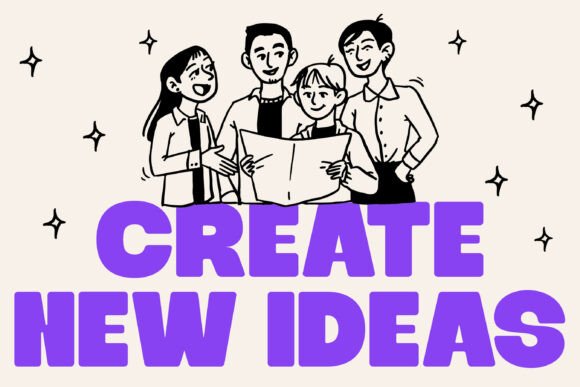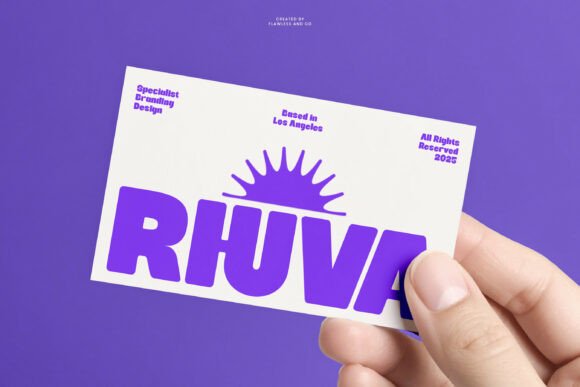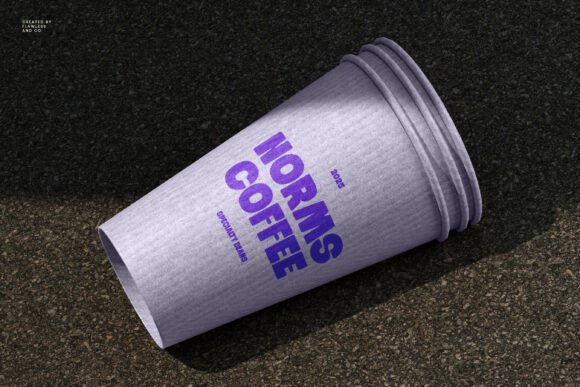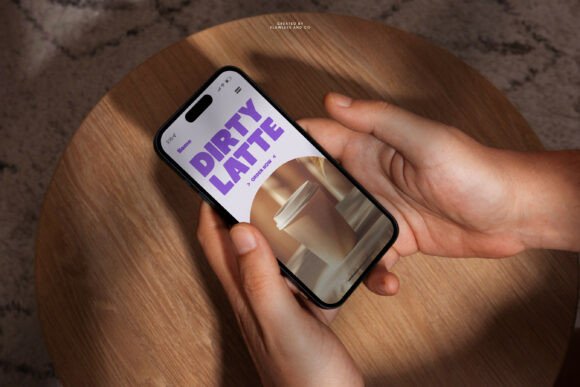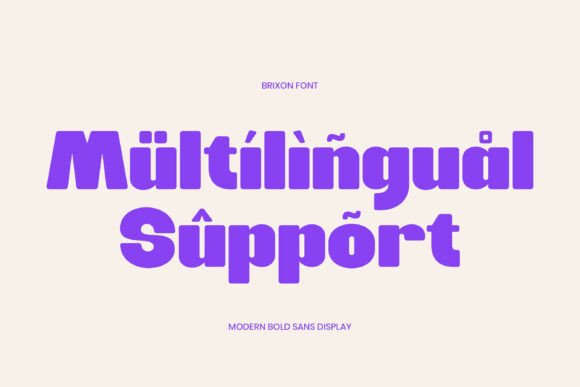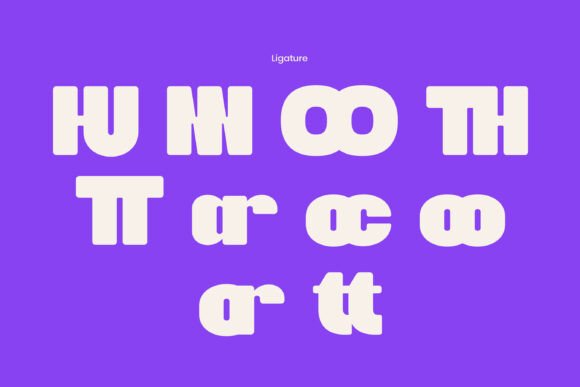
The Power of Bold Typography
Have you ever been stuck on a design project, searching for the perfect font to convey your message and capture your audience’s attention? You know that moment when you’re scrolling through font libraries, and suddenly, a font leaps off the screen, speaking directly to your creative soul? That’s exactly what happens when you come across the Brixon Font.
Built for bold communication, the Brixon Font is a game-changer for designers. With its strong shapes, confident proportions, and modern character, this sans serif display font is designed to make an instant impact. Whether you’re working on a brand identity, a marketing campaign, or a visual project, the Brixon Font delivers powerful visual energy that stands out in any design.
What sets Brixon apart is its unique ability to balance clean lines with expressive character, making it highly readable even at large sizes. This makes it an invaluable tool for designers who need to communicate effectively and make a lasting impression.
Brixon Font Key Features
- Font Family: Brixon Font is a sans-serif font family designed for use in digital and print media.
- Font Size and Resolution: Designed for use at font sizes ranging from 8 to 24 points, with optimal resolution at 300 DPI (dots per inch).
- Unique Characteristics: Brixon Font features a clean and modern design, with a unique blend of geometric and rounded shapes that provide excellent readability in both digital and print media.
- Font Weight and Style: Available in 5 font weights (Light, Regular, Medium, Bold, and Black) and 2 font styles (Regular and Italic).
Brixon Font Review
After diving into the Brixon font, I have mixed feelings about its usability and overall design. Here’s my honest take:
- ✨ The Brixon font has a clean and modern aesthetic, which can be beneficial for digital applications.
- ✨ It comes in multiple weights, allowing designers to choose the perfect version for their project.
- ✨ The font supports a wide range of languages, making it suitable for global projects.
- ⚠️ The font lacks a unique personality, making it blend in with other modern sans-serif fonts.
- ⚠️ It may not be the best choice for print projects, as it can appear too digital and lack texture.
- ⚠️ The font’s versatility is somewhat limited, as it may not be suitable for projects requiring a more classic or elegant feel.
The Brixon font is a solid, dependable choice for digital projects, but it may not stand out in a crowded market. If you’re looking for a clean and modern font with multiple weights and language support, Brixon could be a good option. However, if you need a font with a unique personality or specific aesthetic, you may want to consider other alternatives.
Tips for Getting the Most Out of Brixon Font
Here are some tips for getting the most out of Brixon Font:
- Use Brixon Font for headings and titles to add a touch of elegance to your design.
- Combine Brixon Font with other fonts to create a unique and visually appealing font combination.
- Experiment with different font sizes and styles to add depth and interest to your design.
Brixon Font is commonly used for:
- Use the Brixon Font for the quote and the title of the poster.
- Choose a contrasting color for the background to make the text stand out.
- Experiment with different font sizes to create a visually appealing hierarchy.
- Pair the Brixon Font with geometric shapes or abstract patterns to add a touch of playfulness.
- Use a bold, sans-serif font for the title and a cursive font for the quote to create a visually appealing contrast.
- Experiment with different textures and overlays to add depth and interest to your design.
- Use the Brixon Font for the headings, titles, and main text.
- Choose a neutral color for the background to make the text stand out.
- Experiment with different font sizes to create a clear hierarchy.
- Pair the Brixon Font with
Unleashing Creativity with Brixon Font
Project 1: Whimsical Quote Poster
Create a visually appealing quote poster that showcases your favorite inspirational quote using the Brixon Font. This modern, sans-serif font is perfect for adding a touch of sophistication to your design.
How to use Brixon Font:
Project 2: Minimalist Resume Template
Create a modern and sleek resume template using the Brixon Font. This clean and simple font is perfect for showcasing your skills and experience in a clear and concise manner.
How to use Brixon Font: